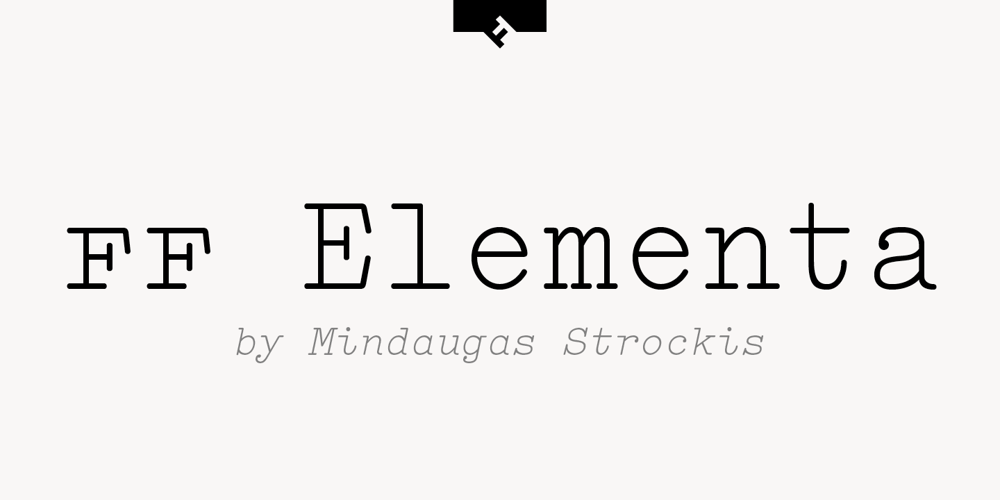
FF Elementa Font Family was designed by Mindaugas Strockis and published by FontFont. FF Elementa contains 4 styles and family package options. Lithuanian type designer Mindaugas Strockis created this slab FontFont between 1998 and 2002. The family contains 4 weights: Regular, Italic, Bold, and Bold Italic and is ideally suited for advertising and packaging, festive occasions, small text as well as software and gaming. FF Elementa provides advanced typographical support with features such as small capitals, alternate characters, case-sensitive forms, fractions, super- and subscript characters, and stylistic alternates. It comes with proportional oldstyle, tabular lining, and tabular oldstyle figures. As well as Latin-based languages, the typeface family also supports the Cyrillic and Greek writing systems. This FontFont is a member of the FF Elementa super family, which also includes FF Elementa Rough.